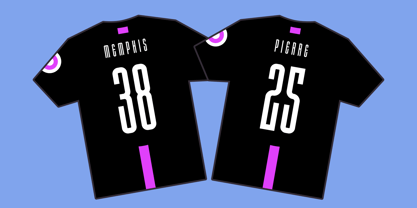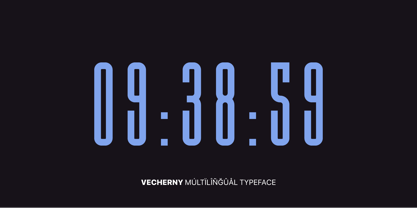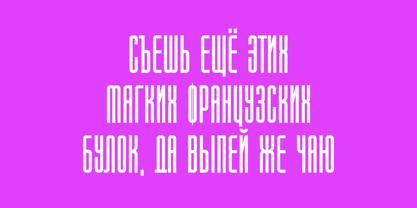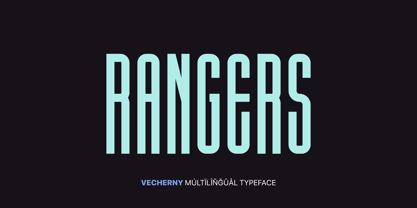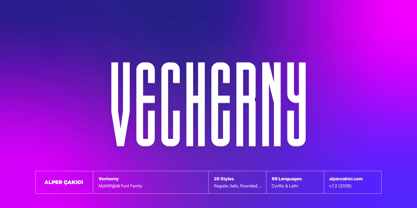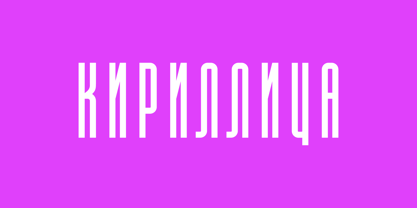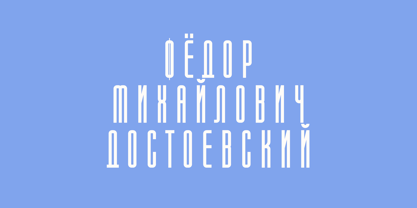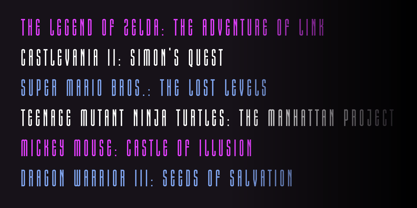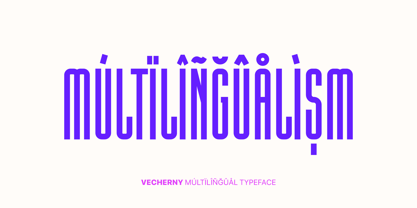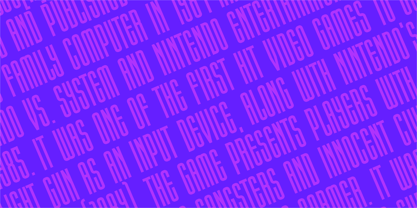
Vecherny
Vecherny is a modern, versatile title font with excellent kerning, making it ideal for both digital and print use. It features full support for the Cyrillic language, allowing for seamless multilingual communication. Vecherny's unique design combines classic proportions with a contemporary feel, making it stand out from other same categories fonts.